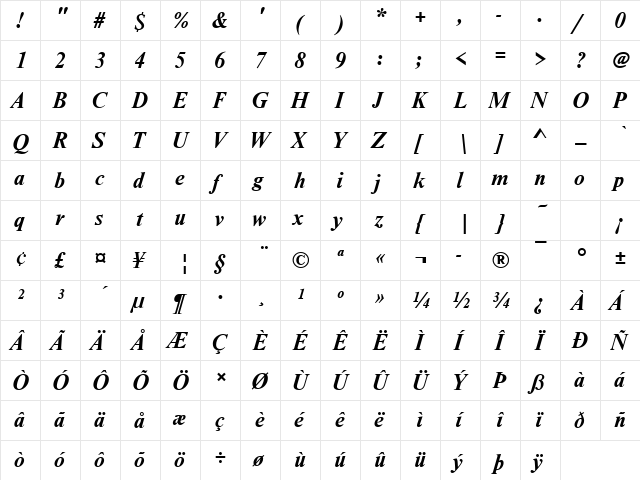
NimbusRomDUN Bold Italic
Design Context for NimbusRomDUN Typeface
NimbusRomDUN offers clean, dependable letterforms without strong stylistic allegiance, making it a practical choice for designers who need flexibility. Its italic angle brings a sense of urgency and motion to the letterforms. Its bold stroke weight gives it real presence on the page.
Pro Tip: Use NimbusRomDUN for emphasis, pull quotes, and subheadings where its slanted energy can add rhythm to the layout.